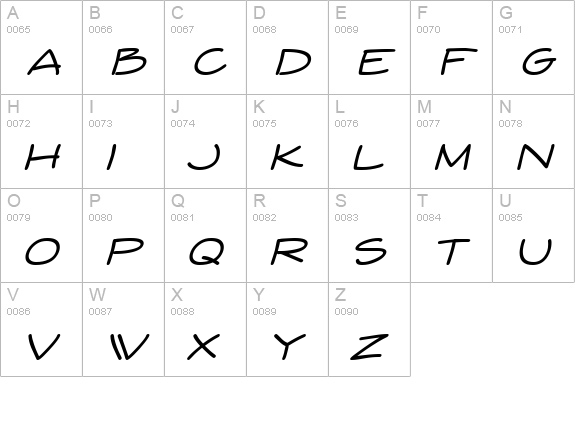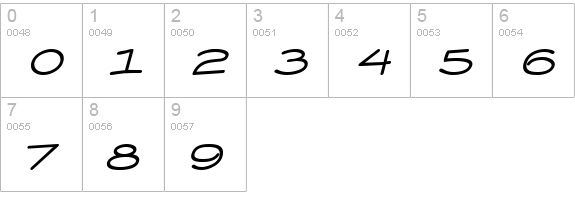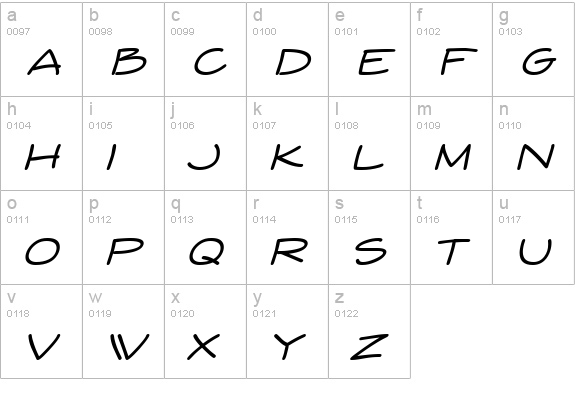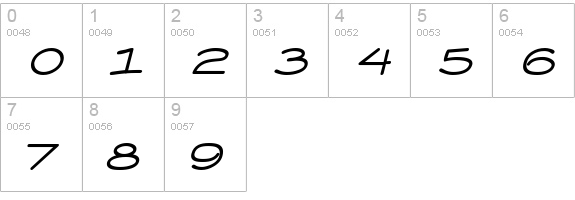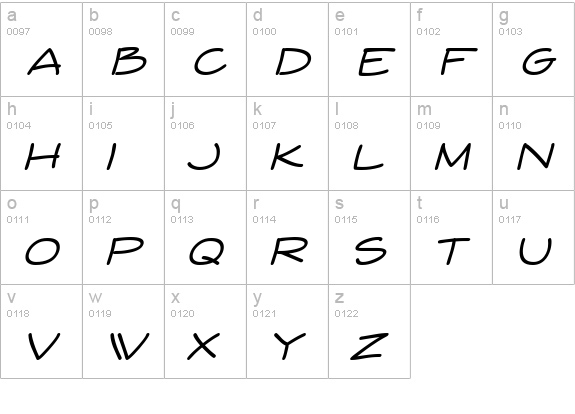
Yuba BTN Oblique Font Details
Yuba BTN Oblique is a distinctive, italic variant in the Yuba typeface family \xE2\x80\x94 well suited to design and typography projects.
Yuba BTN Oblique font is a stylish and modern typeface that exudes elegance and sophistication. With its sleek slanted design, this font is perfect for adding a touch of flair to your projects. The slanted letters create a dynamic and eye-catching appearance, making it ideal for headlines, logos, and other design elements. What sets Yuba BTN Oblique font apart is that it is available for free download at FontsMarket.com. This means you can easily access this stunning font to elevate your creative work without any cost. Whether you're designing a website, poster, or branding materials, Yuba BTN Oblique font will add a touch of professionalism and style to your projects. Download it today and take your designs to the next level!